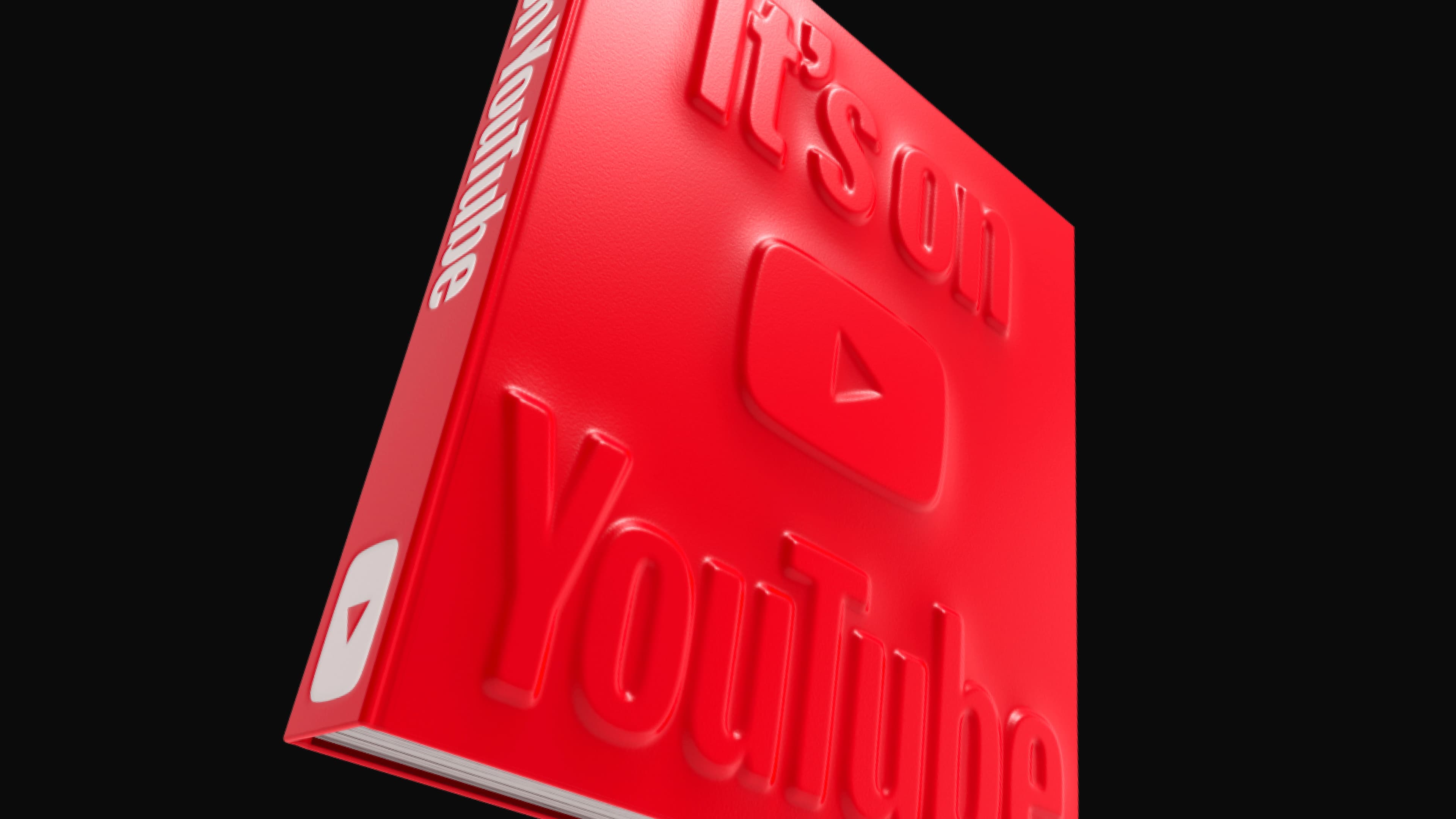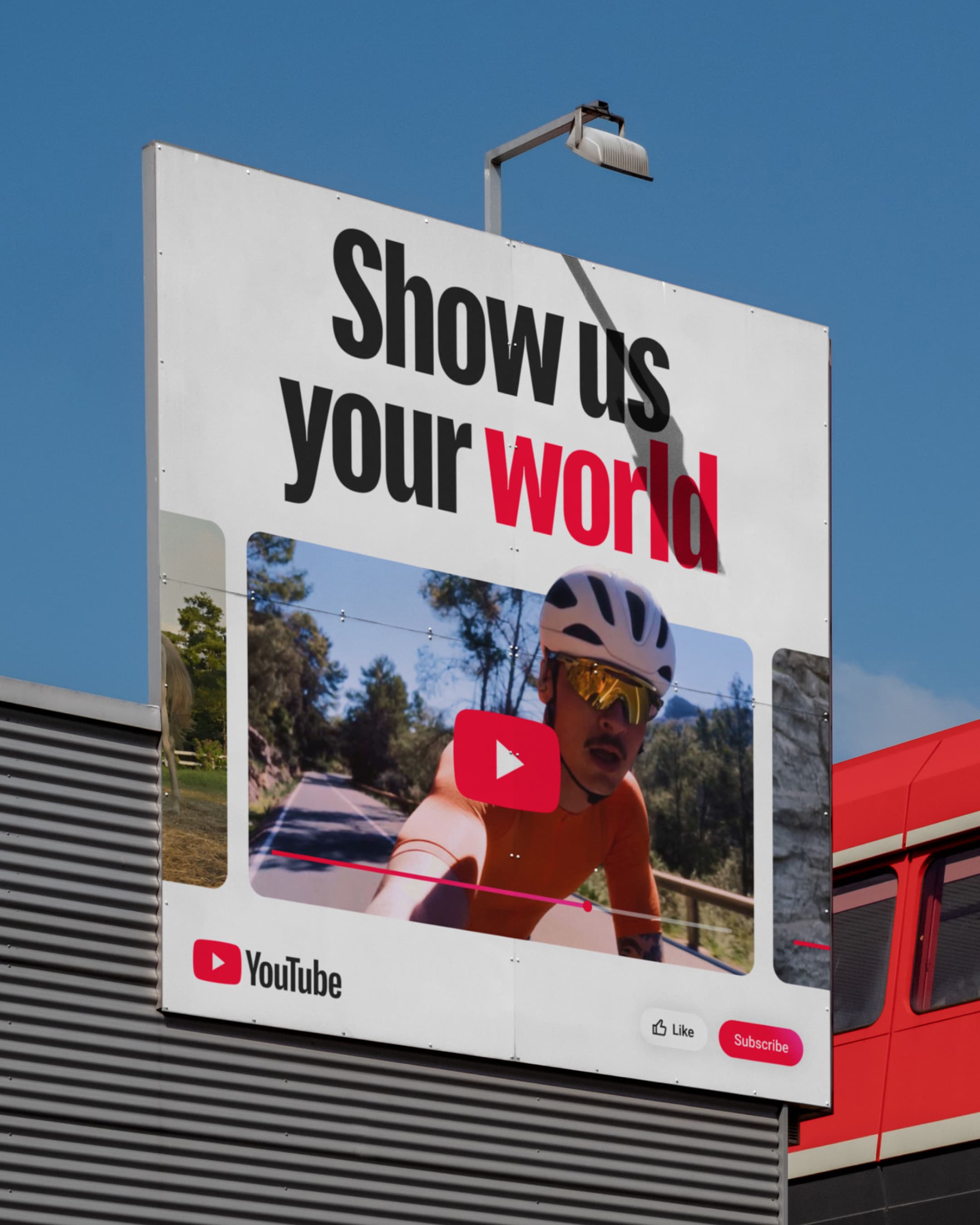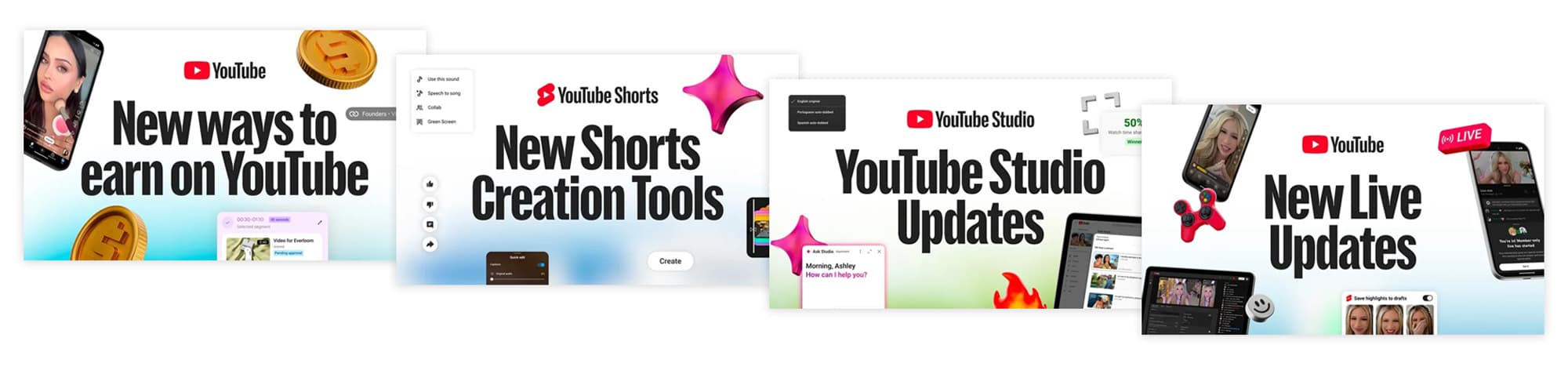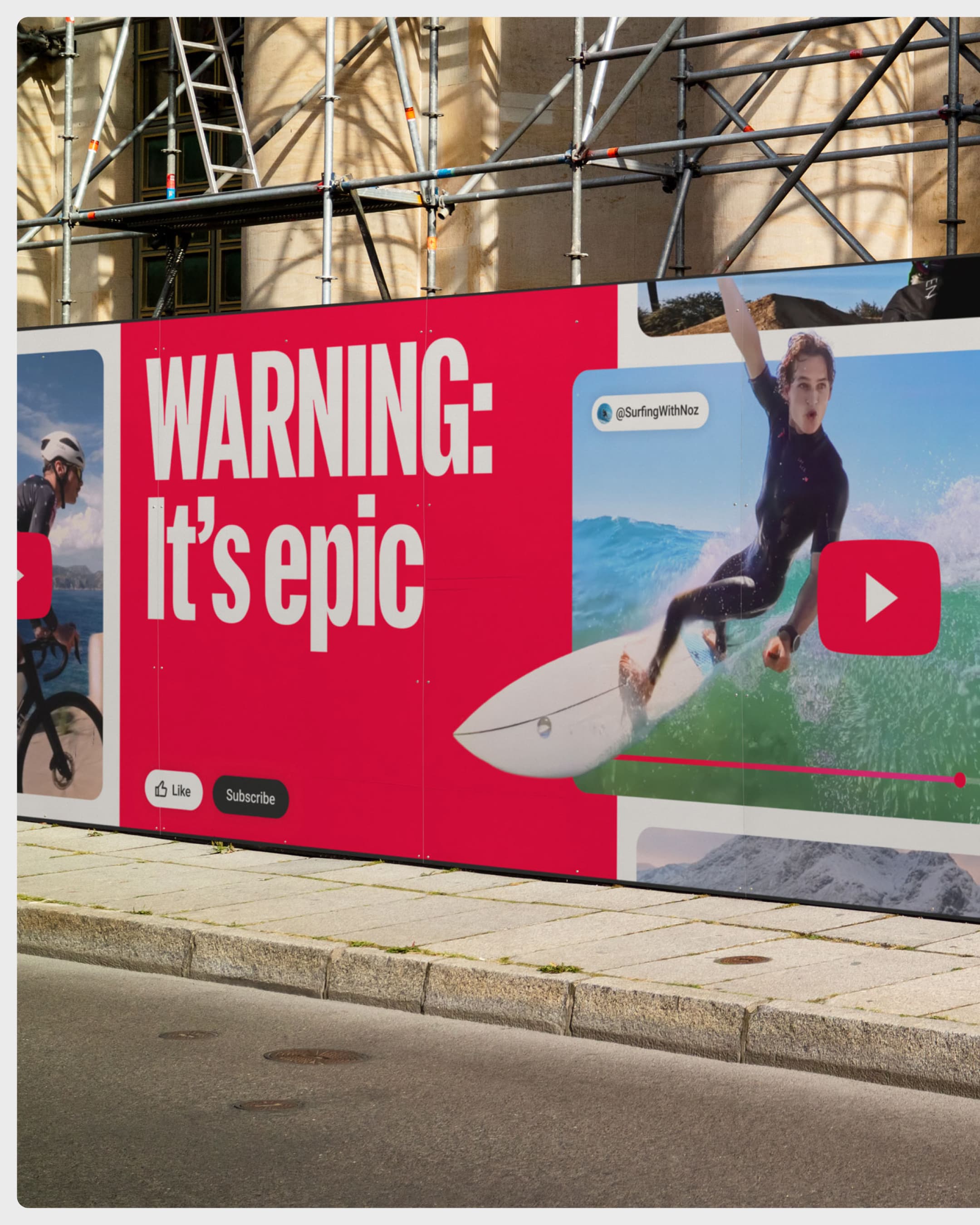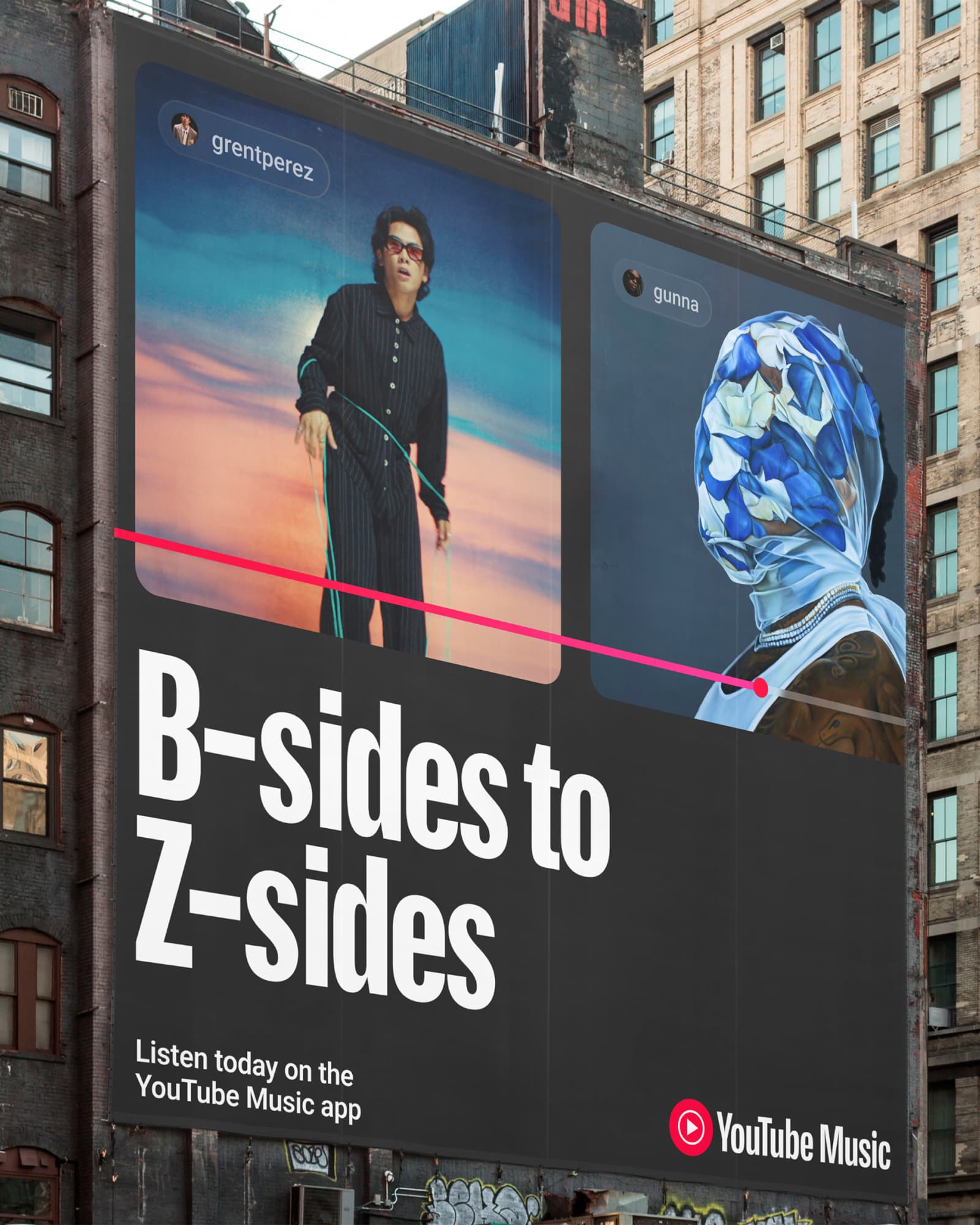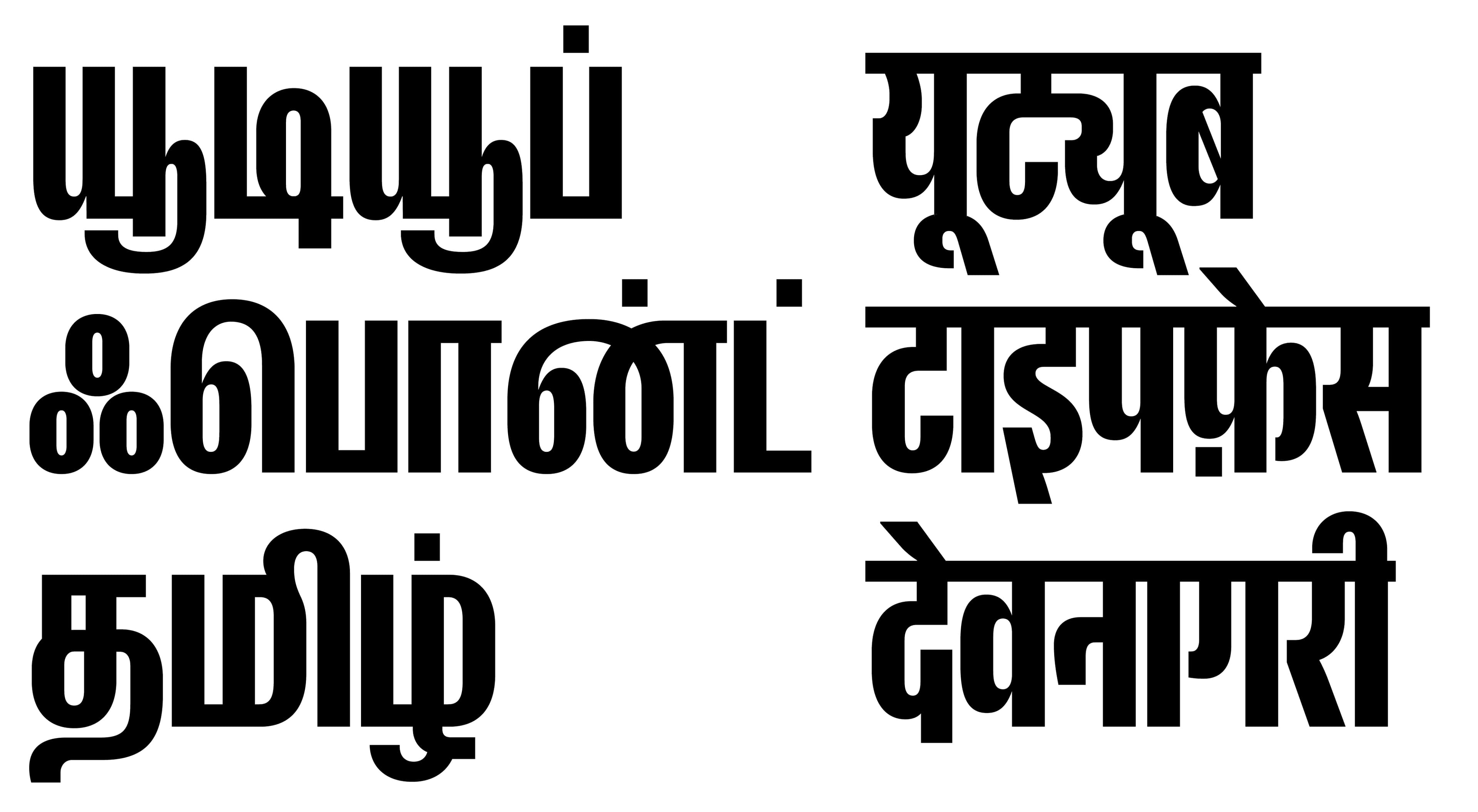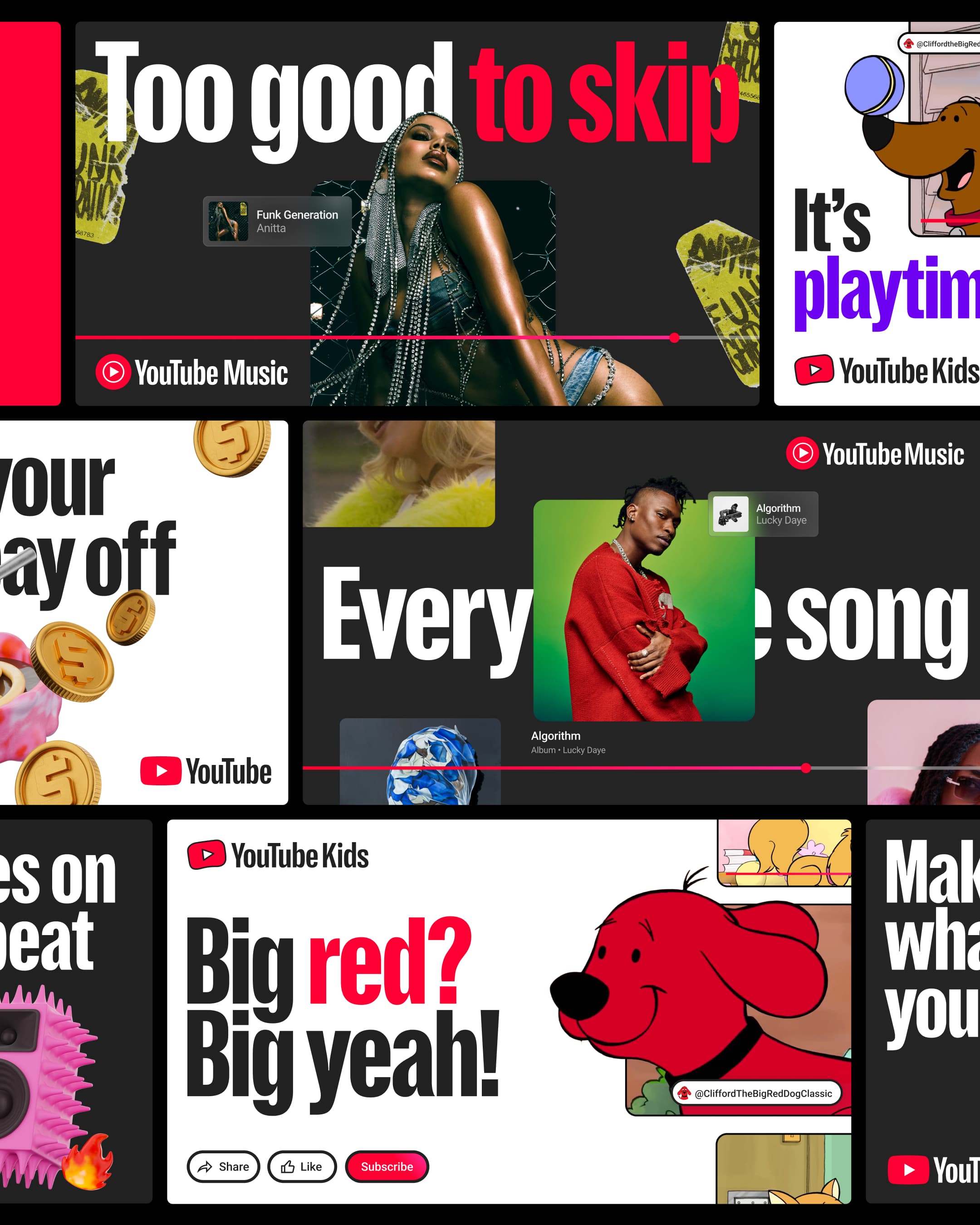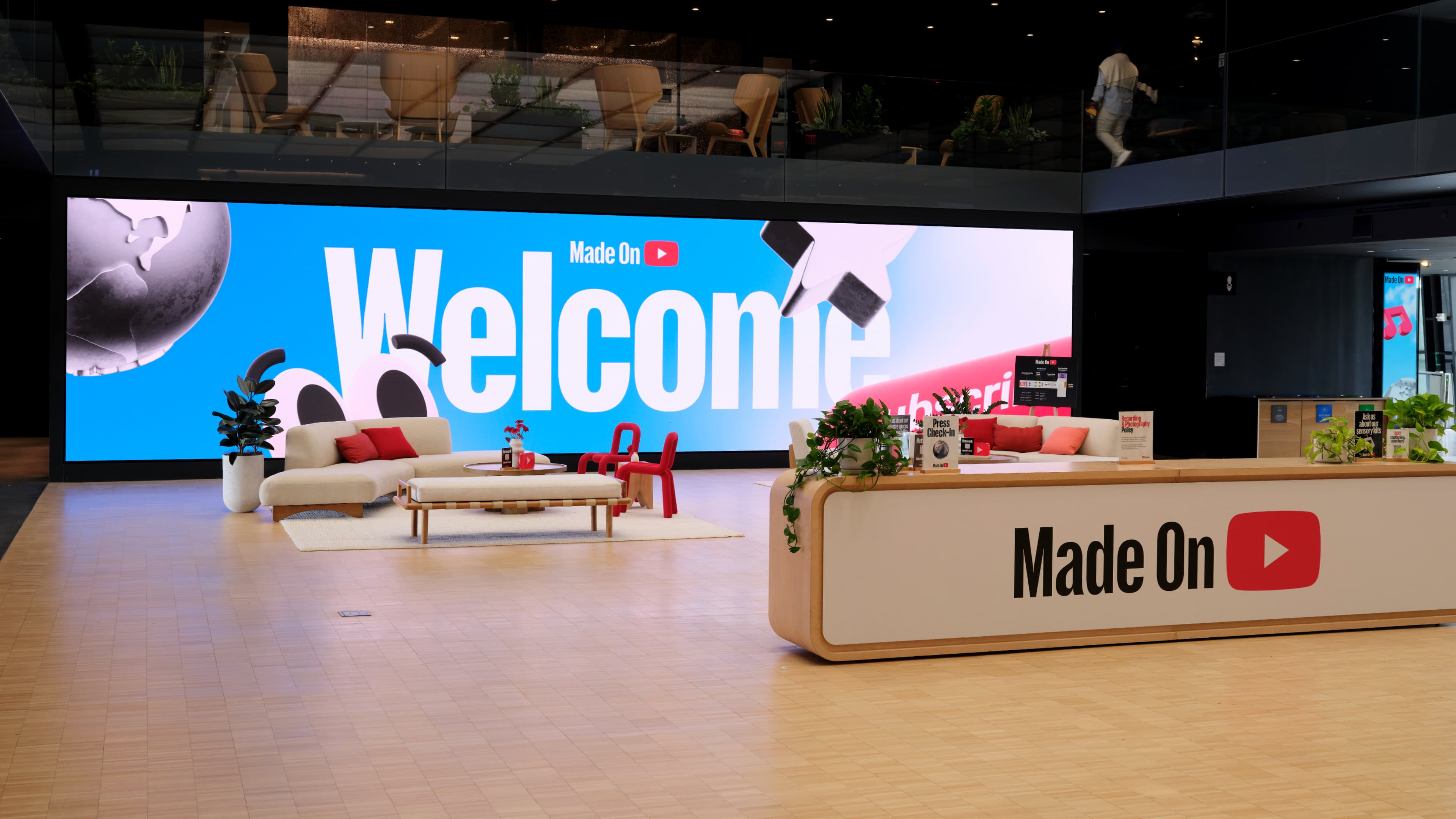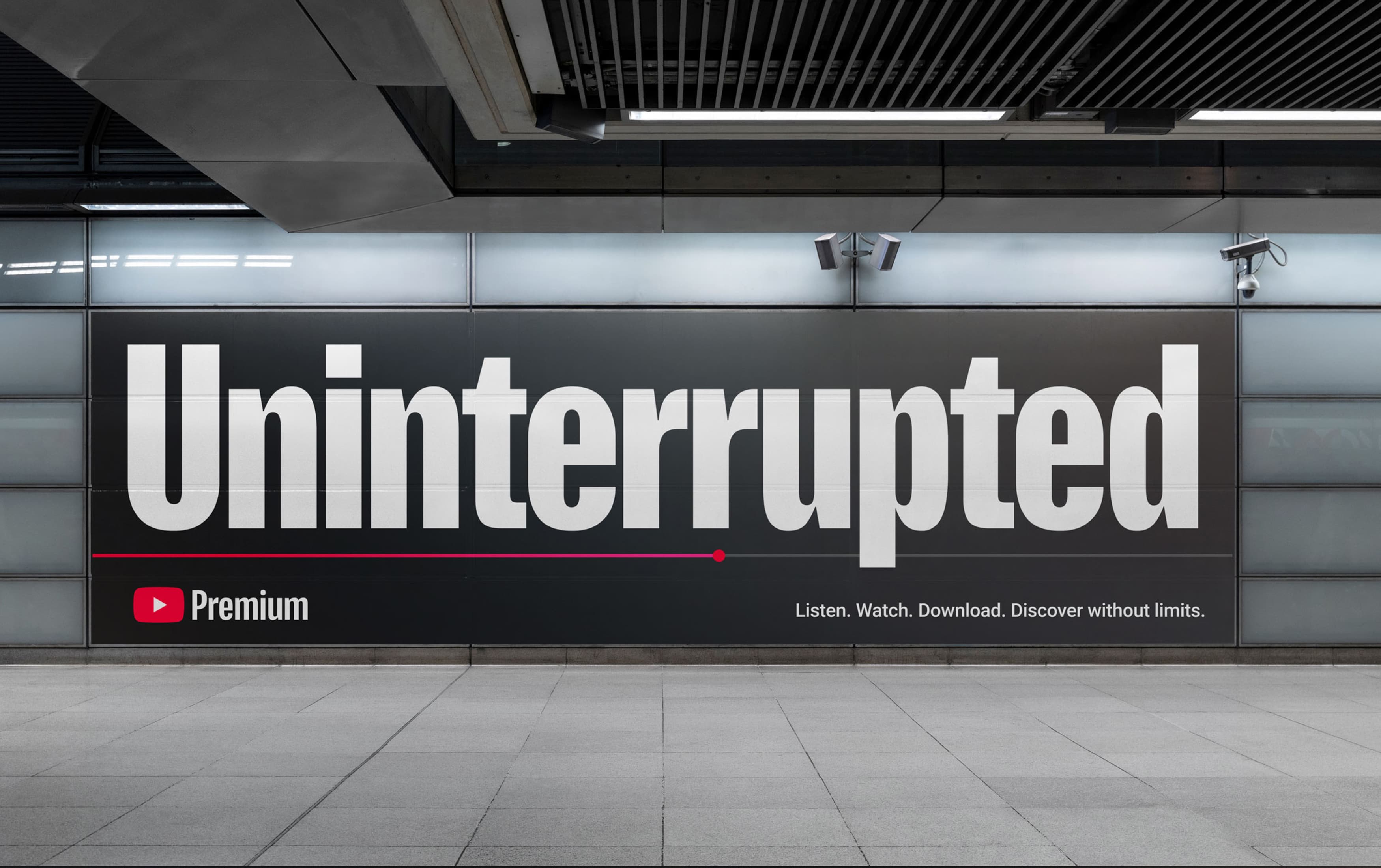
YouTube Display
Developing A Global Multi-script Display For The Streaming Giant
The iconic and globally recognized YouTube brand came to us with the challenge of unifying its visual identity for a global refresh. They sought a system that could deliver both consistency and distinctiveness across billions of users and touchpoints. We developed a heavy lifting display typeface that builds on YouTube’s brand equity while supporting expansive language coverage